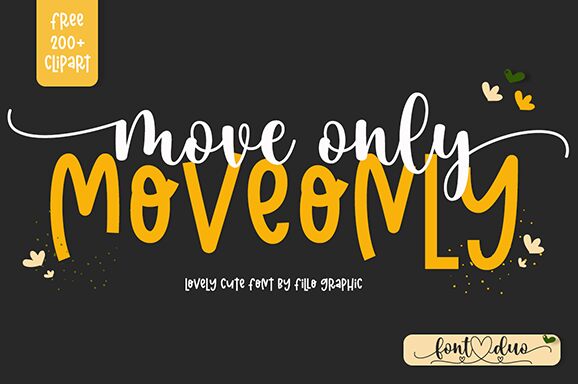
Move Only
Move Only font is a free handwritten font from Fillo Graphic with elegant and artistic letters for truly expressive designs. Each letter maintains a flowing design, one that surprises the reader through its unending features. Regardless of what’s on the menu, Move Only makes any text hold an impressive presence with soft handwriting aesthetics.